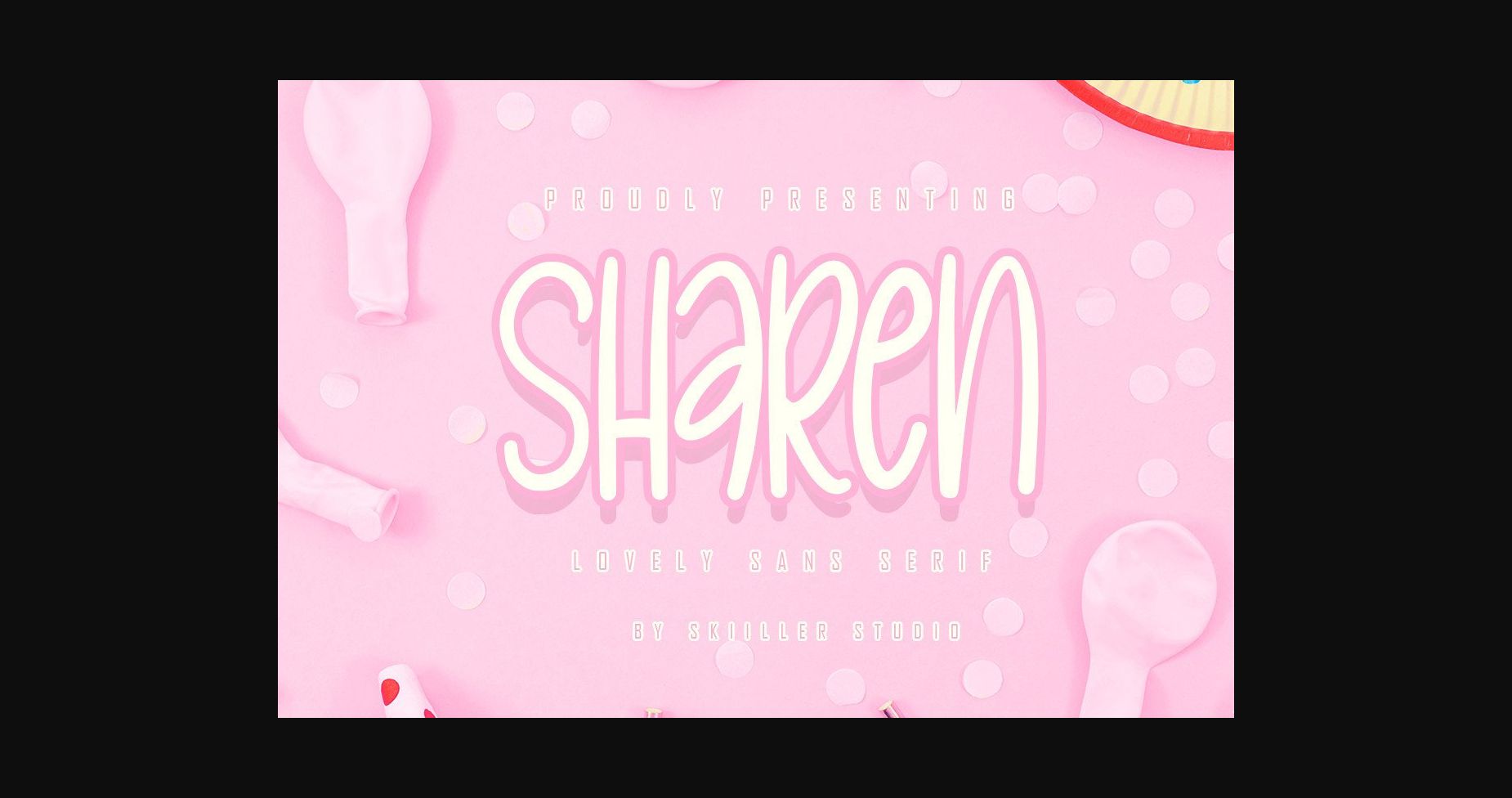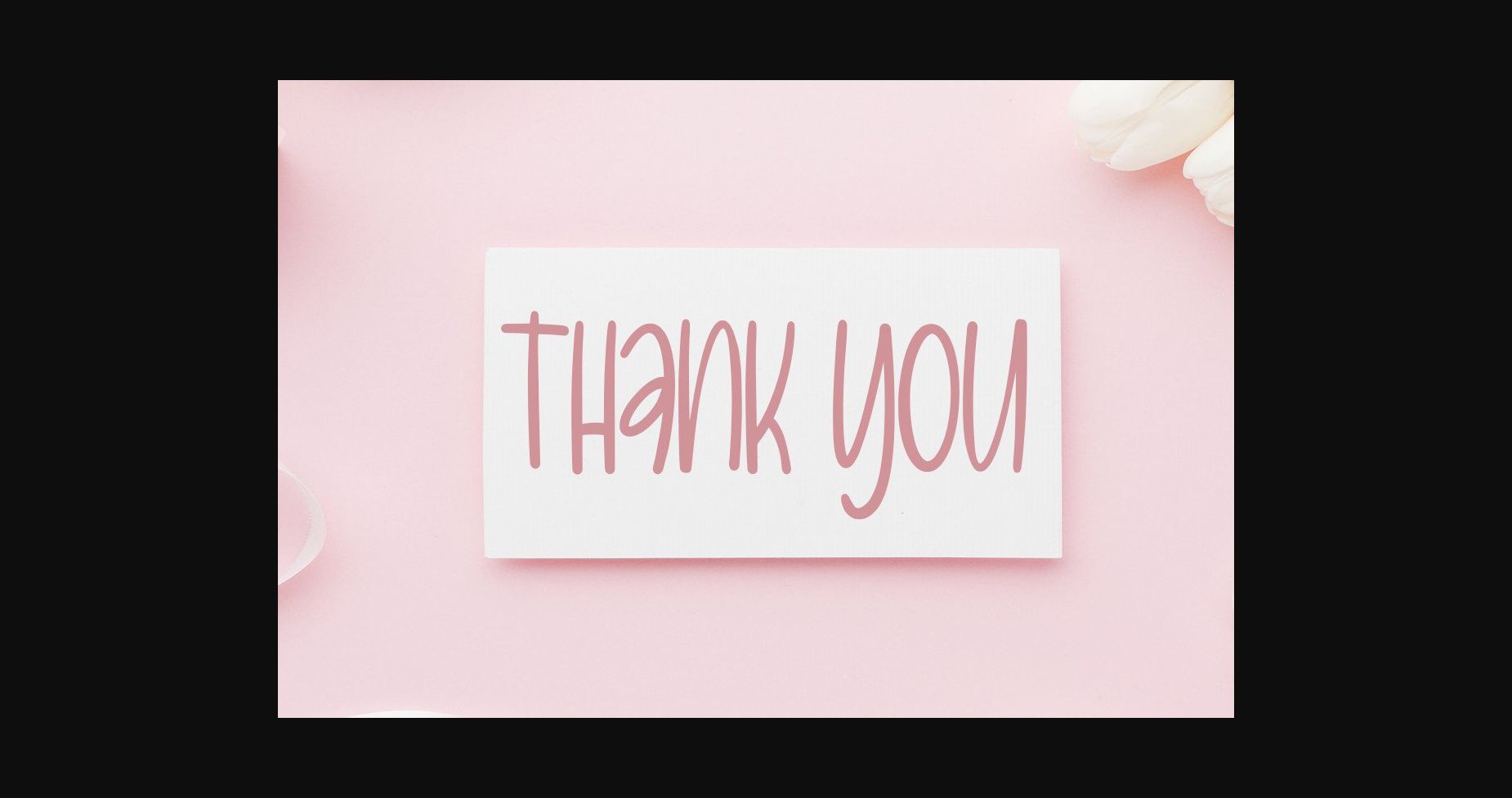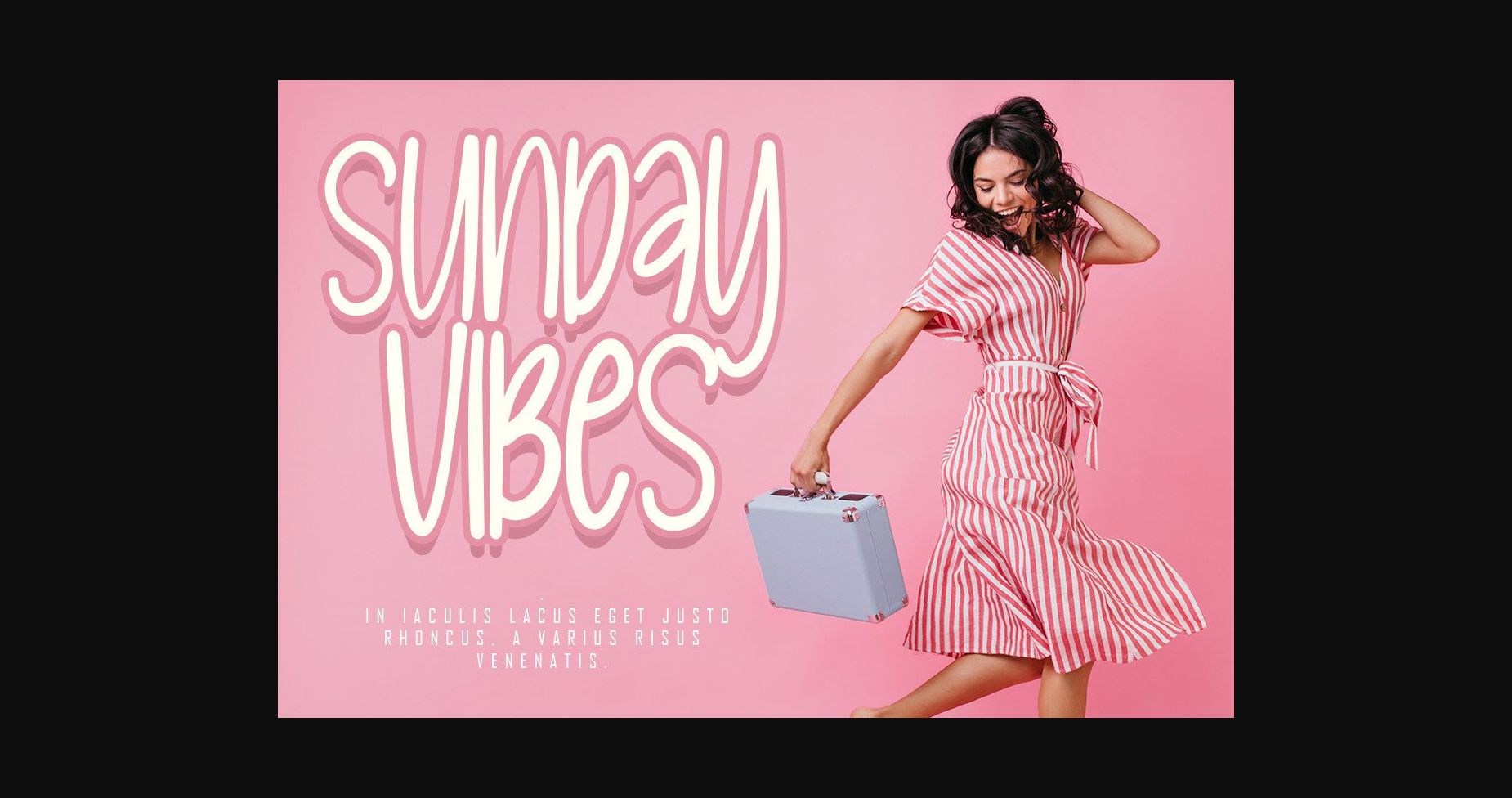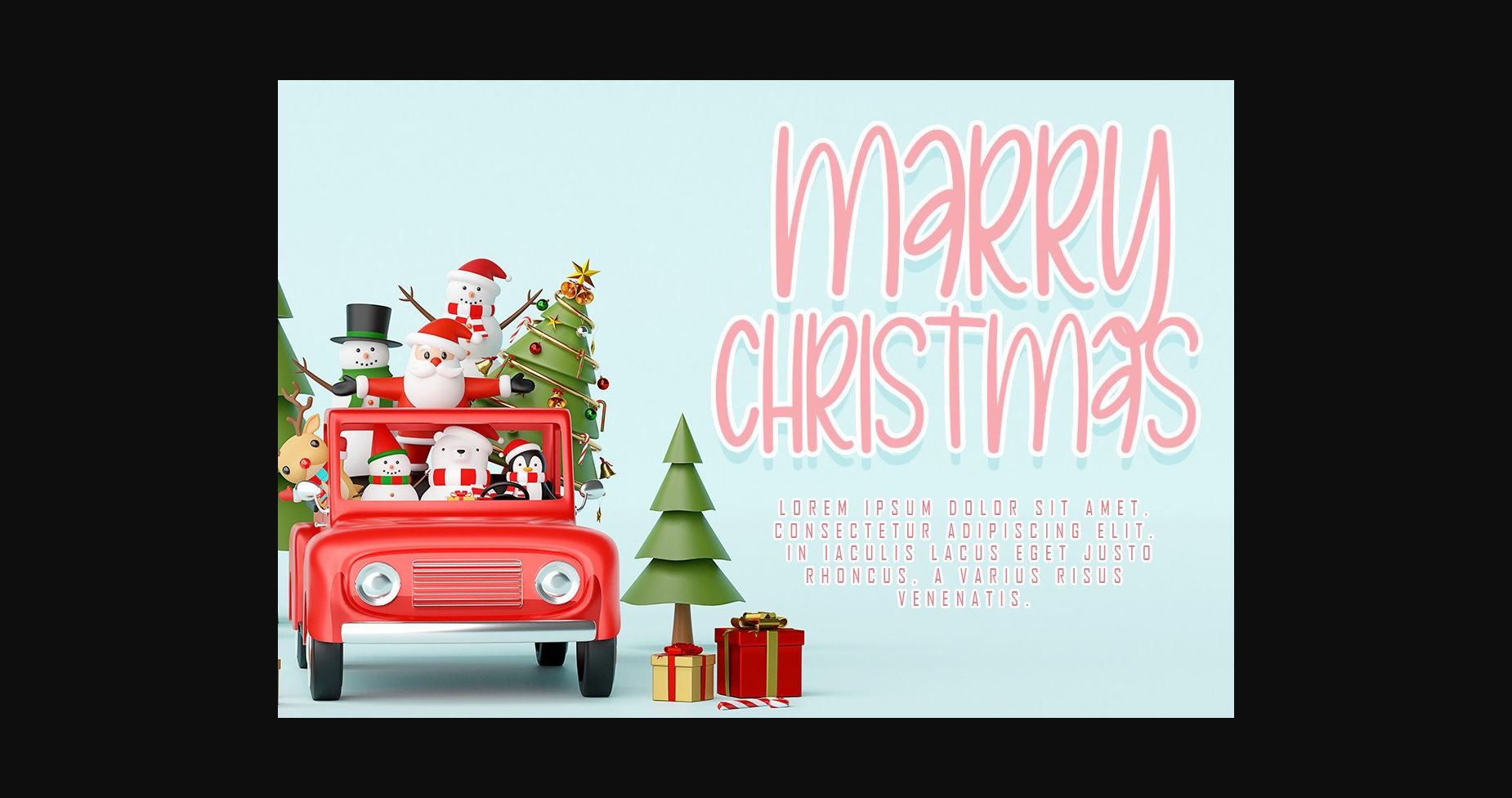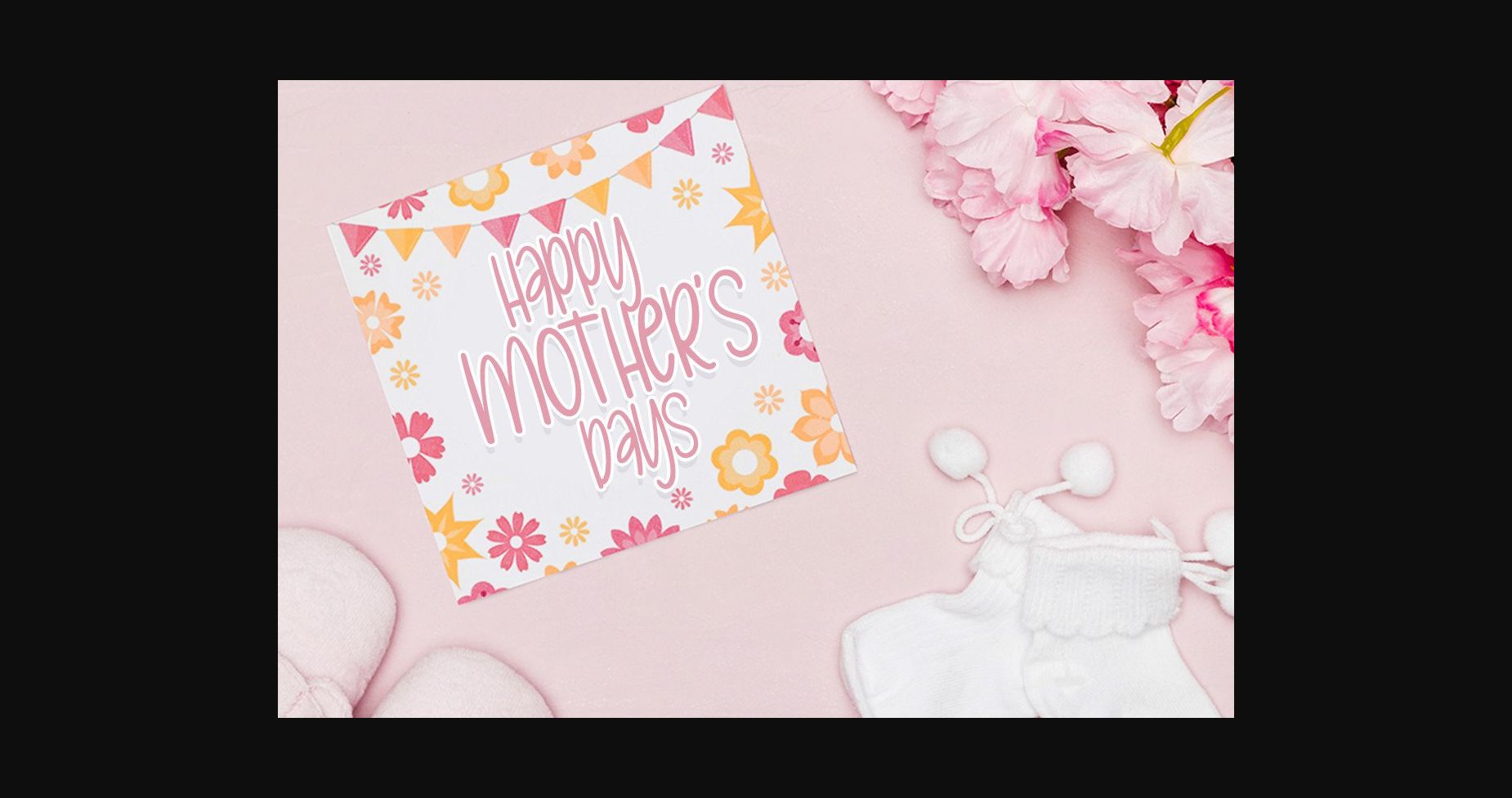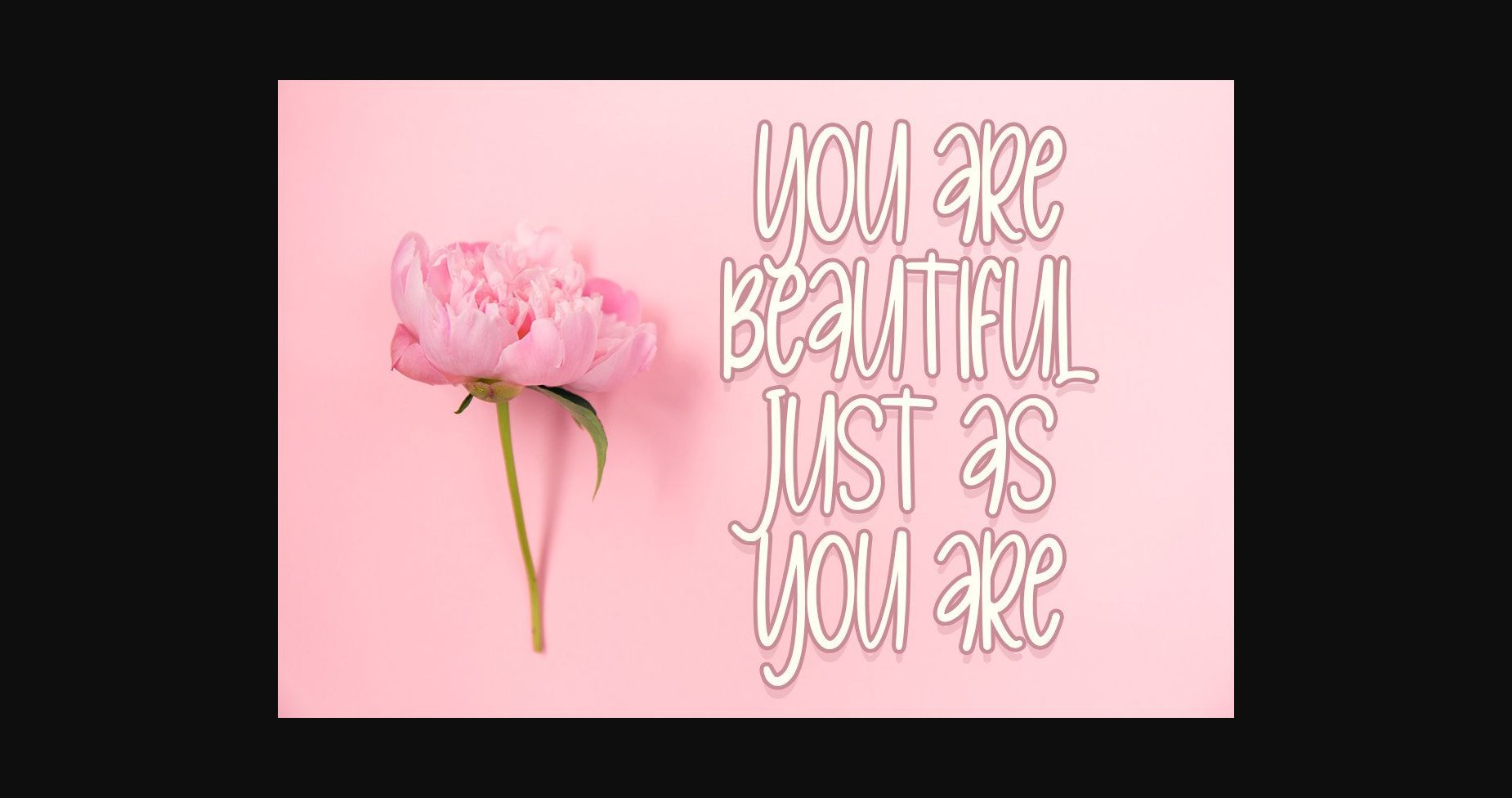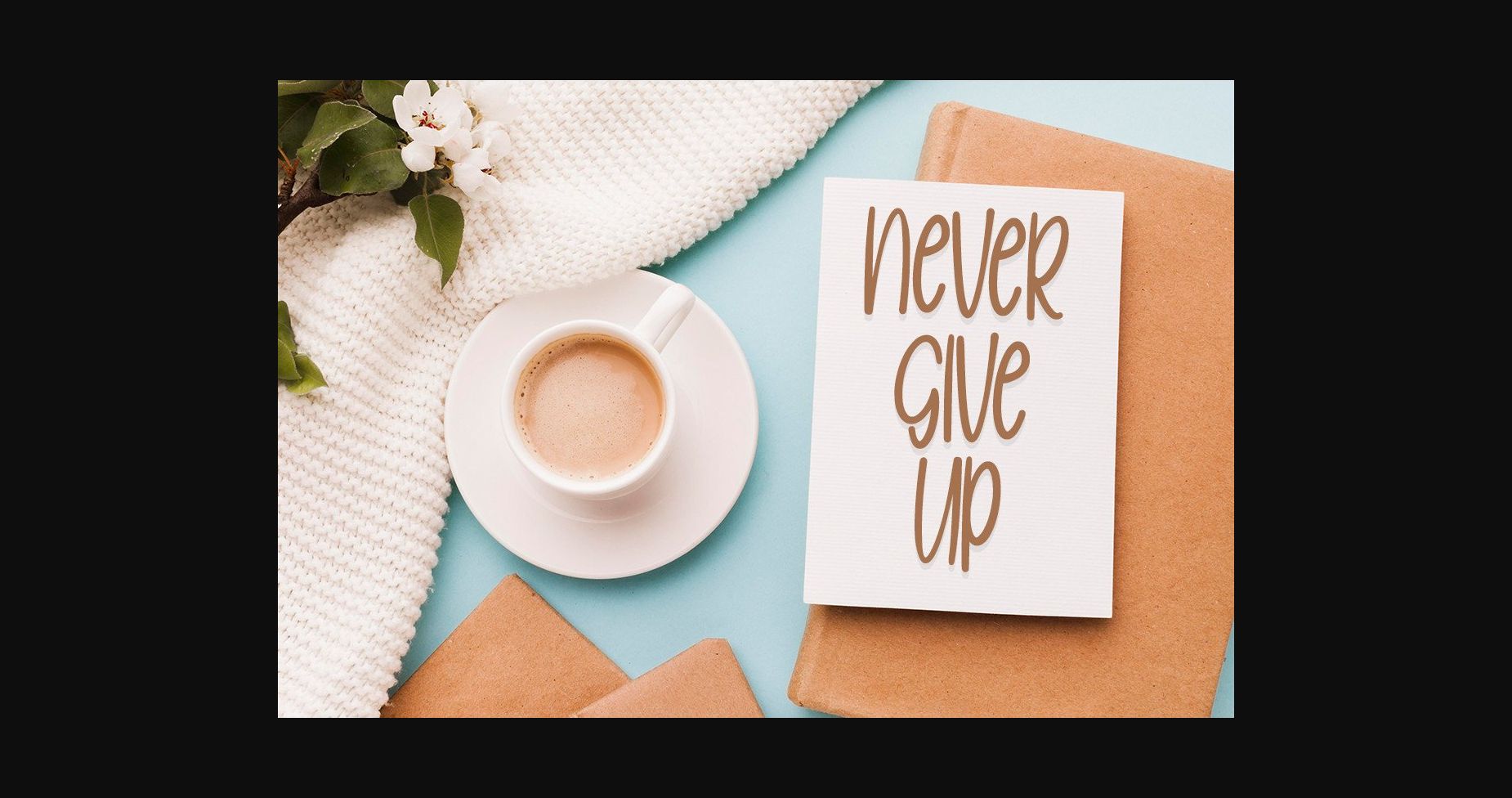
HomeSans Serif FontsSharen Font Sans Serif Fonts Sharen Font FacebookXPinterestWhatsApp 1 of 10 ... Sharen Font Poster 2... Sharen Font Poster 3... Sharen Font Poster 4... Sharen Font Poster 5... Sharen Font Poster 6... Sharen Font Poster 7... Sharen Font Poster 8... Sharen Font Poster 9... Sharen Font Poster 10... About Sharen Font Sharen is a cool, playful, and lovely handwritten font. This font is perfect for children-themed designs, especially when combined with bright colors. DOWNLOAD NOW People also explored Shintia Font Kharisma Font Saint Patrick Font Thingking Font Betterside Font Modern Script Font Splatink Font The Beach Font Unicorn Font 435 0 TagsSharenSharen Font Previous articleLabreak FontNext articleStanderd Font LEAVE A REPLY Cancel reply Comment: Please enter your comment! Name:* Please enter your name here Email:* You have entered an incorrect email address! Please enter your email address here Website: Save my name, email, and website in this browser for the next time I comment. Personal Use Free Leorio Personal Use Free Read more about this font Roland Personal Use Free Read more about this font Doriath Personal Use Free Read more about this font Kaylafiz Personal Use Free Read more about this font BLOG To increase your work productivity, choose the most readable fonts. In today's fast-paced work environment, where digital communication and information consumption are integral to our daily routines, the choice of fonts can significantly impact... Elegant Wedding Invitation Fonts – Handwritten & Script Fonts Free Fonts Risk: Why Free Fonts Can Be Dangerous for Designers The 10 Best Handwriting Fonts to Add Personality to Your Designs